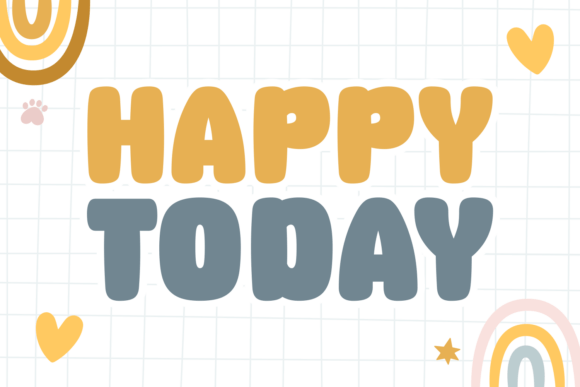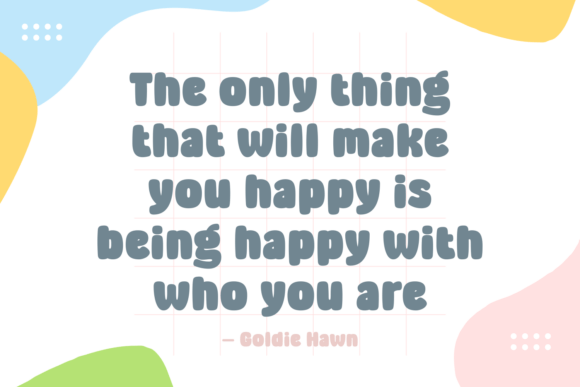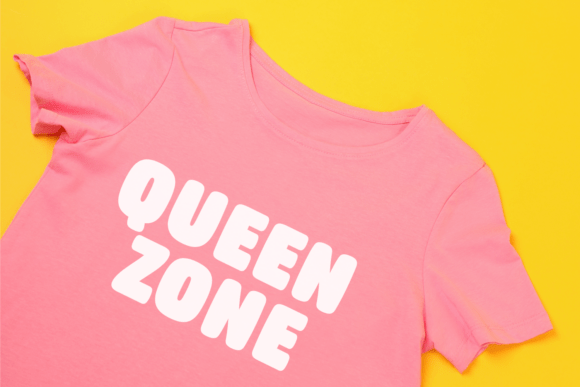
Introduction to Making Strides Font
Have you ever stumbled upon a font that perfectly captures the essence of your creative project? For designers, finding that one special font can be a game-changer. It’s like stumbling upon a hidden gem in a bustling craft store – it’s a feeling that’s hard to replicate, but oh-so-satisfying. For those seeking a design resource that exudes warmth and approachability, look no further than the Making Strides Font.
This delightful font is more than just a pretty face – it’s a high-quality design tool that’s perfect for bringing your creative vision to life. With its ultra-rounded letterforms and playful baseline, the Making Strides Font is a must-have for designers looking to create engaging and eye-catching content. Whether you’re working on a children’s nursery branding project or crafting social media headers for a lifestyle vlog, this font is sure to make your designs stand out.
Key Features of Making Strides Font
- High-quality design resource perfect for creative projects, offering a unique and modern look.
- Unique characteristics: Geometric shapes, clean lines, and a minimalist aesthetic make it ideal for modern design projects.
Honest Review: Making Strides Font
As a designer, I’m always on the lookout for high-quality design resources to enhance my creative projects. Recently, I came across the Making Strides Font, and I’m excited to share my honest review.
- Modern and sleek design aesthetic that’s perfect for contemporary projects
- High-quality vector graphics that can be scaled up or down without losing clarity
- Transparent background option allows for seamless integration with various design elements
- Limited character set, which may not be suitable for extensive text-based projects
- Some glyphs may not be fully optimized for certain languages or scripts
Overall, I’m impressed with the Making Strides Font’s clean design and versatility. While it may not be perfect for every project, it’s an excellent choice for modern, text-based designs where a high-quality, free font is required.
Use Making Strides Font in conjunction with a transparent background for a clean and modern look. Experiment with different font sizes and styles to add visual interest to your design. This versatile font is perfect for a wide range of creative projects, from business cards to social media graphics.
Making Strides Font is commonly used in design projects such as business cards, social media graphics, and marketing materials. Its unique design and high-quality feel make it a popular choice among designers looking for a unique design resource.